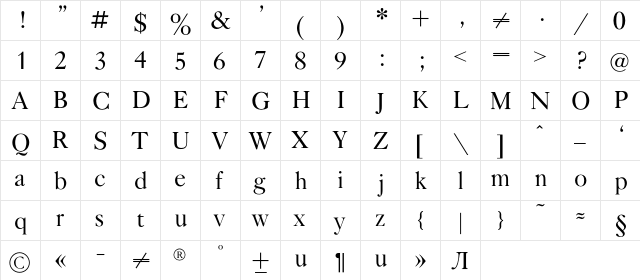
GazetaTitulC Regular
Design Context for GazetaTitulC Typeface
GazetaTitulC is a composed and adaptable typeface that performs quietly and consistently across a wide range of design contexts.